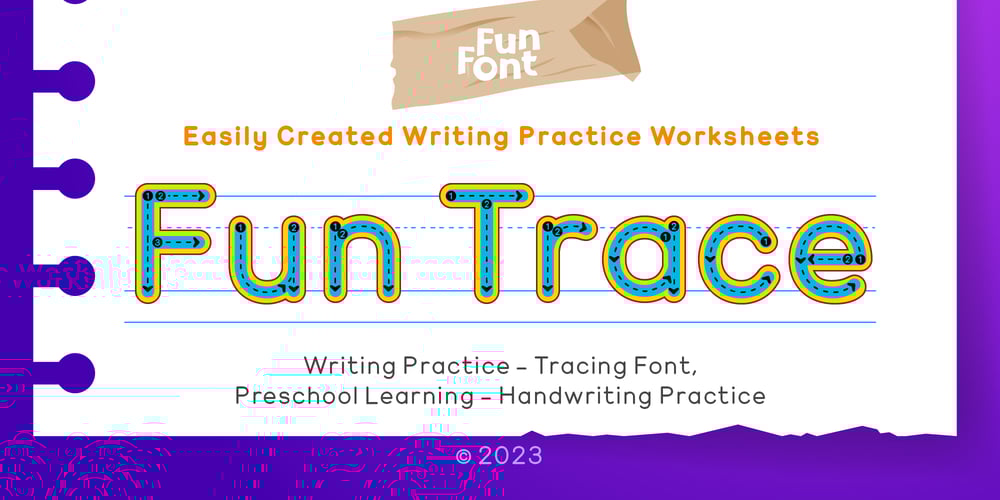
Fun Trace Font Family was designed by Bustanul Arifin and published by FunFont. Fun Trace contains 6 styles and family package options. FunTrace is font prepared to make it easier to teach children to recognize letters, numbers and practice writing.Designed to consist of 6 sub-families of fonts (Regular, Bold, Dashes, Directions, Outlines, and Guide Lines) supports the child’s learning process in a fun way.